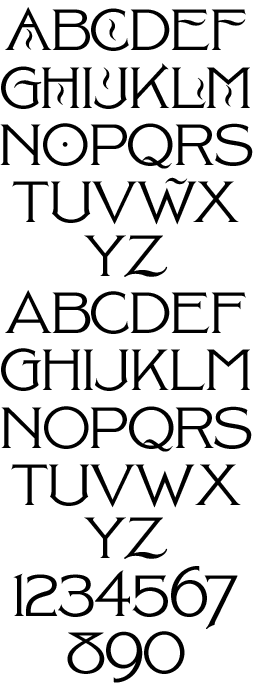
LHF Old Flame
Suitable for designs that require a classic look. Includes OpenType feature that automatically substitutes the plain caps located on the lowercase keys to prevent your message from appearing overly decorative. You may turn off "Automatic Ligatures" in Adobe programs to override this feature.
For those not using Adobe programs, it is recommended to follow the above guideline by using a plain cap after a decorative cap. Otherwise the result will likely appear too decorative and garish. |